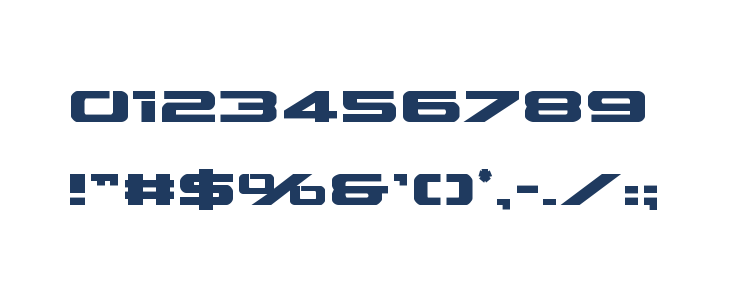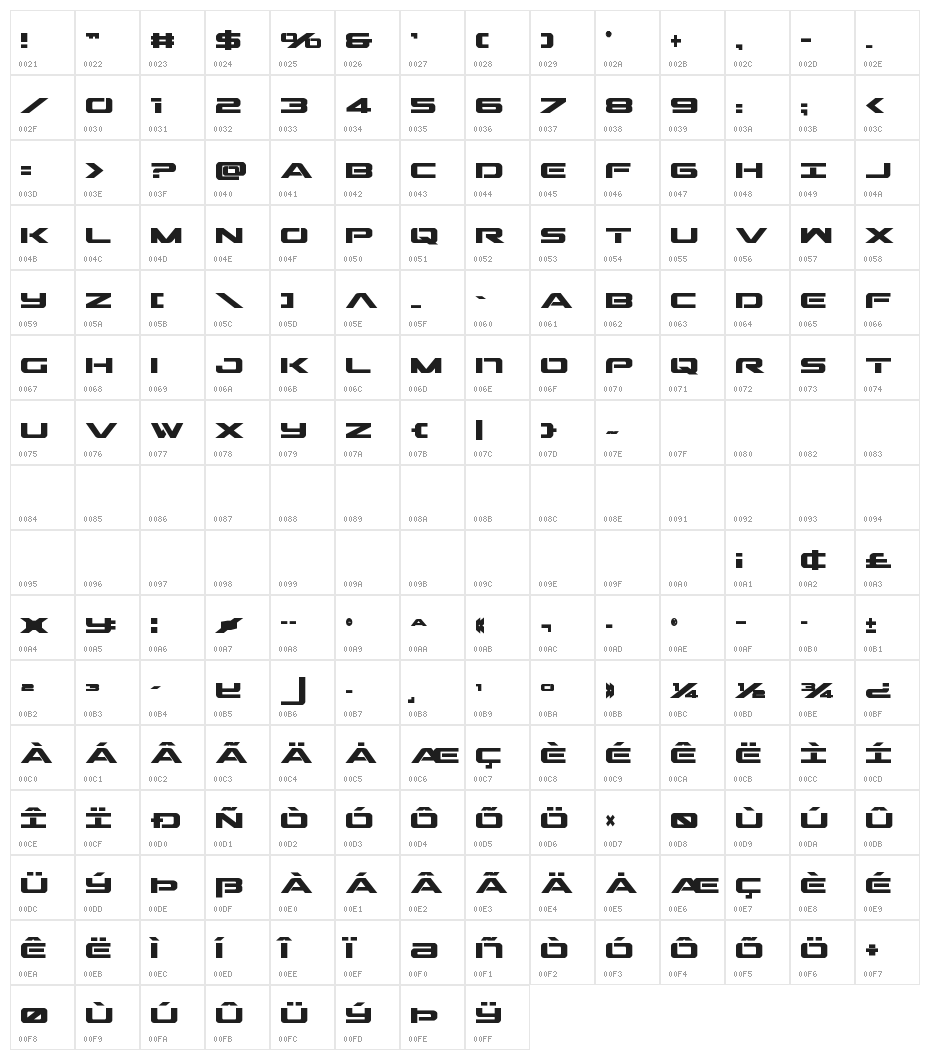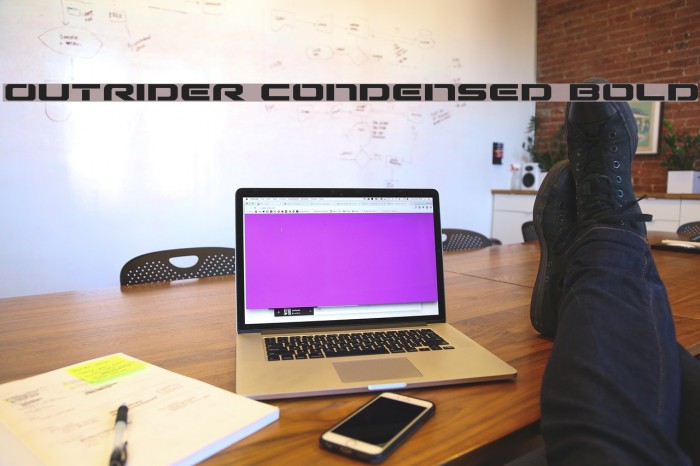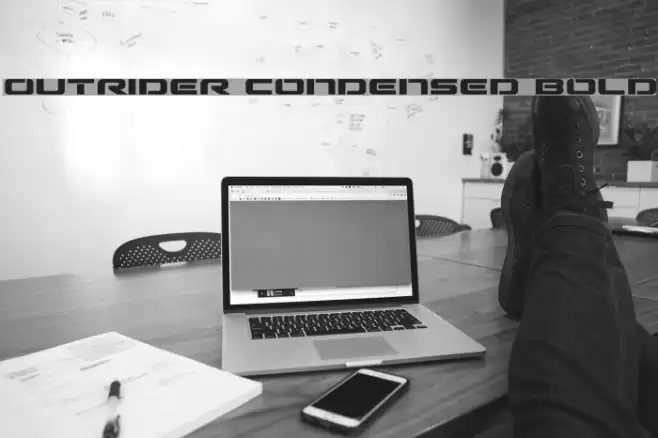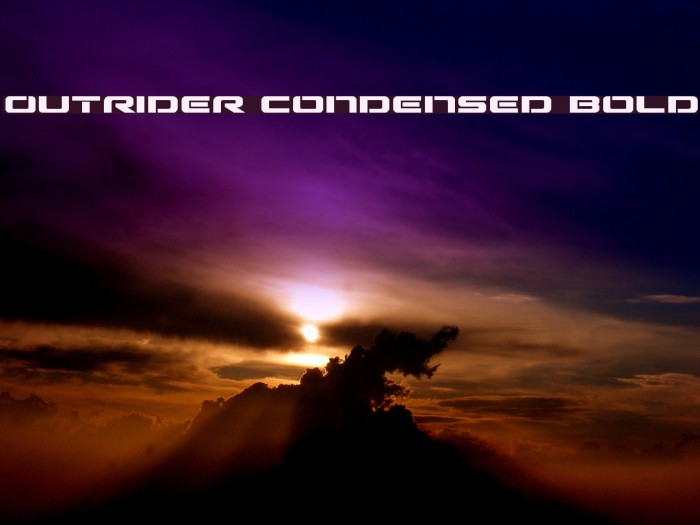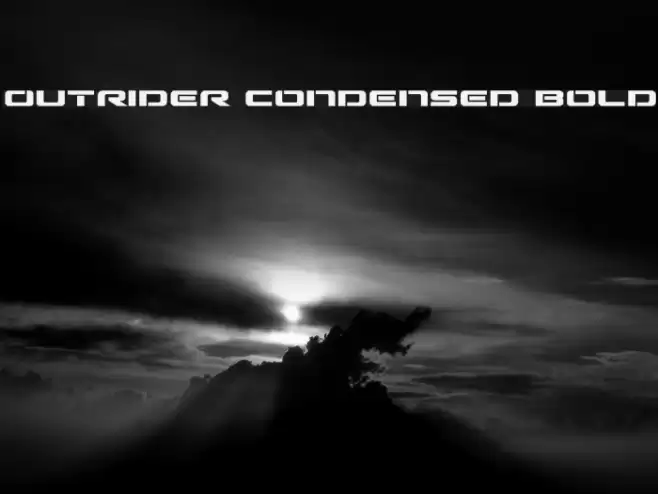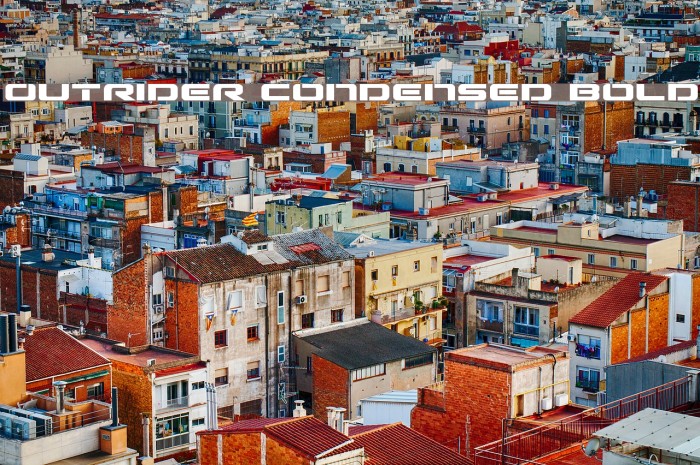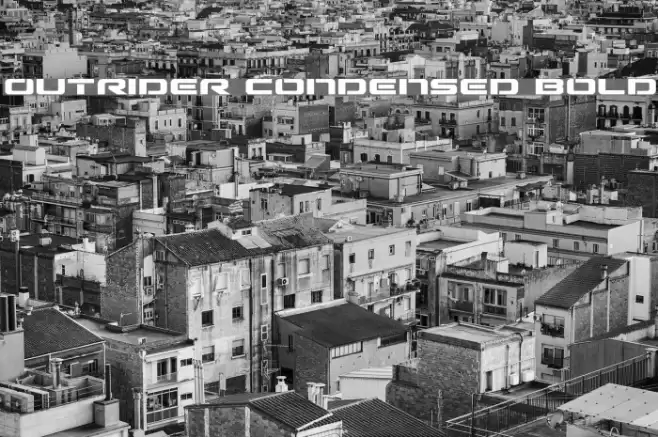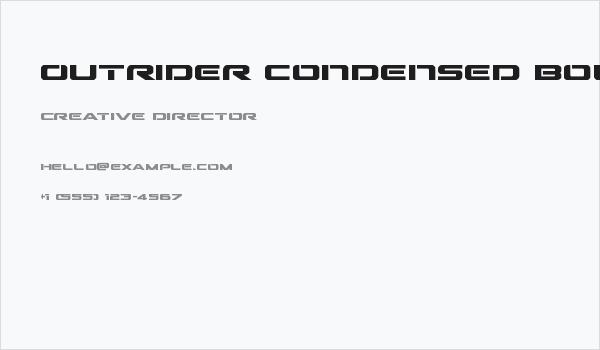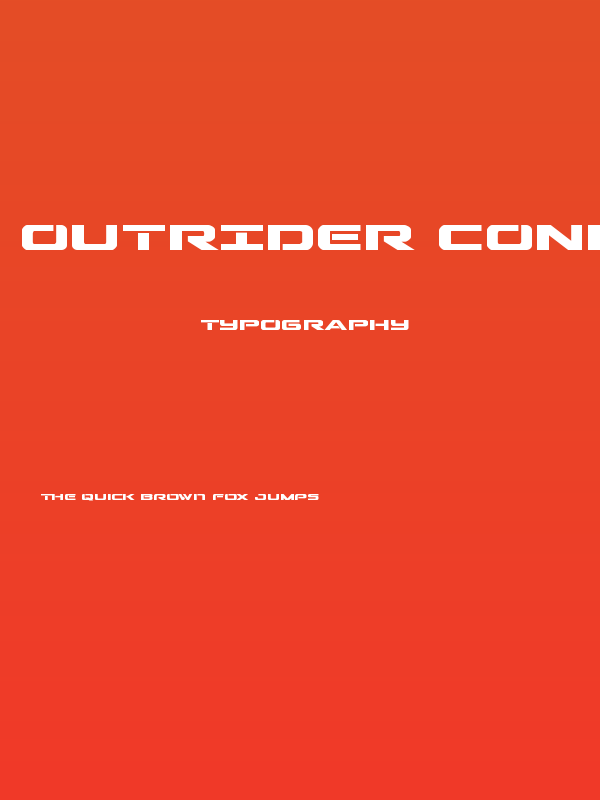
Outrider Condensed Bold Font
Outrider Condensed Bold Description
This font features a bold and condensed style, characterized by its strong geometric shapes and sharp angles. The uppercase letters are particularly striking, with a futuristic and industrial feel. The lowercase letters maintain the same boldness, ensuring consistency across different text cases. Numbers and special characters are designed to match the overall aesthetic, making them suitable for impactful and modern designs. The font's condensed nature allows for efficient use of space, making it ideal for headlines and titles where space is limited.
| Proposed Projects | Ideal for use in technology branding, sci-fi themed designs, video game titles, and modern posters. |